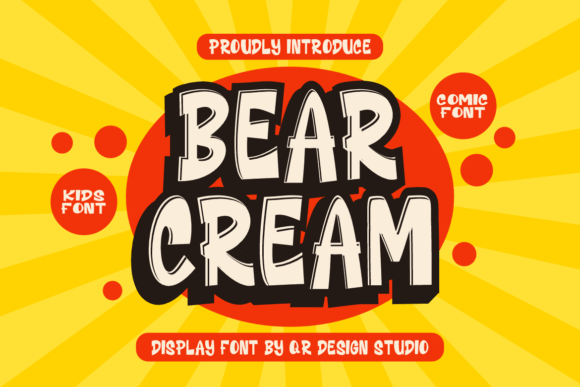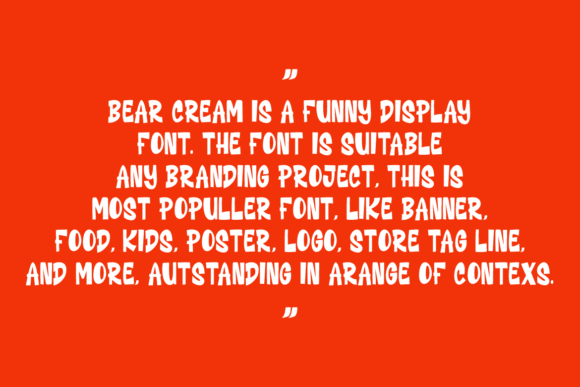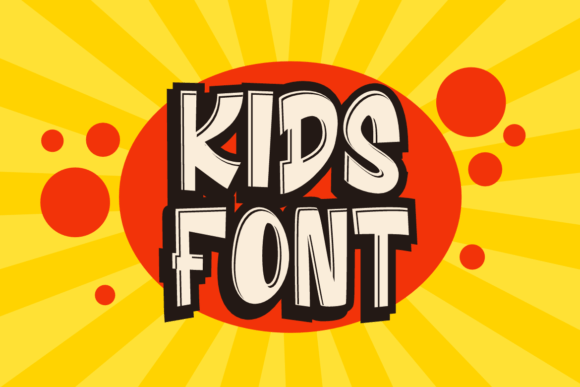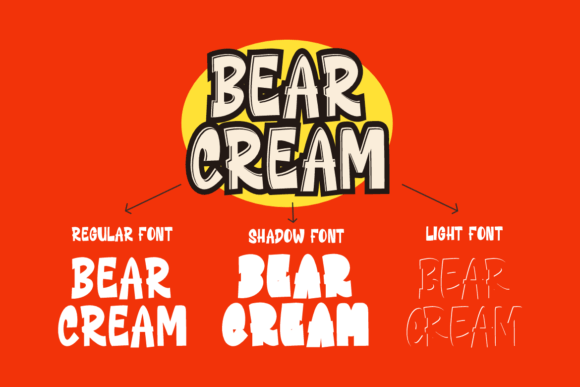
Bear Cream Font: A Bold & Playful Display Font for Kids’ Branding
About the Bear Cream Font
Add a touch of class to your work with the Bear Cream Font, a truly exceptional typeface. Bear Cream Font is a bold and authentic display font.
The font is suitable for any branding project like logos, kids, comics, summer, food, posters, kids, and many more.
Outstanding in a wide range of contexts.
Bear Cream Font Usage Examples
Bear Cream Font Example